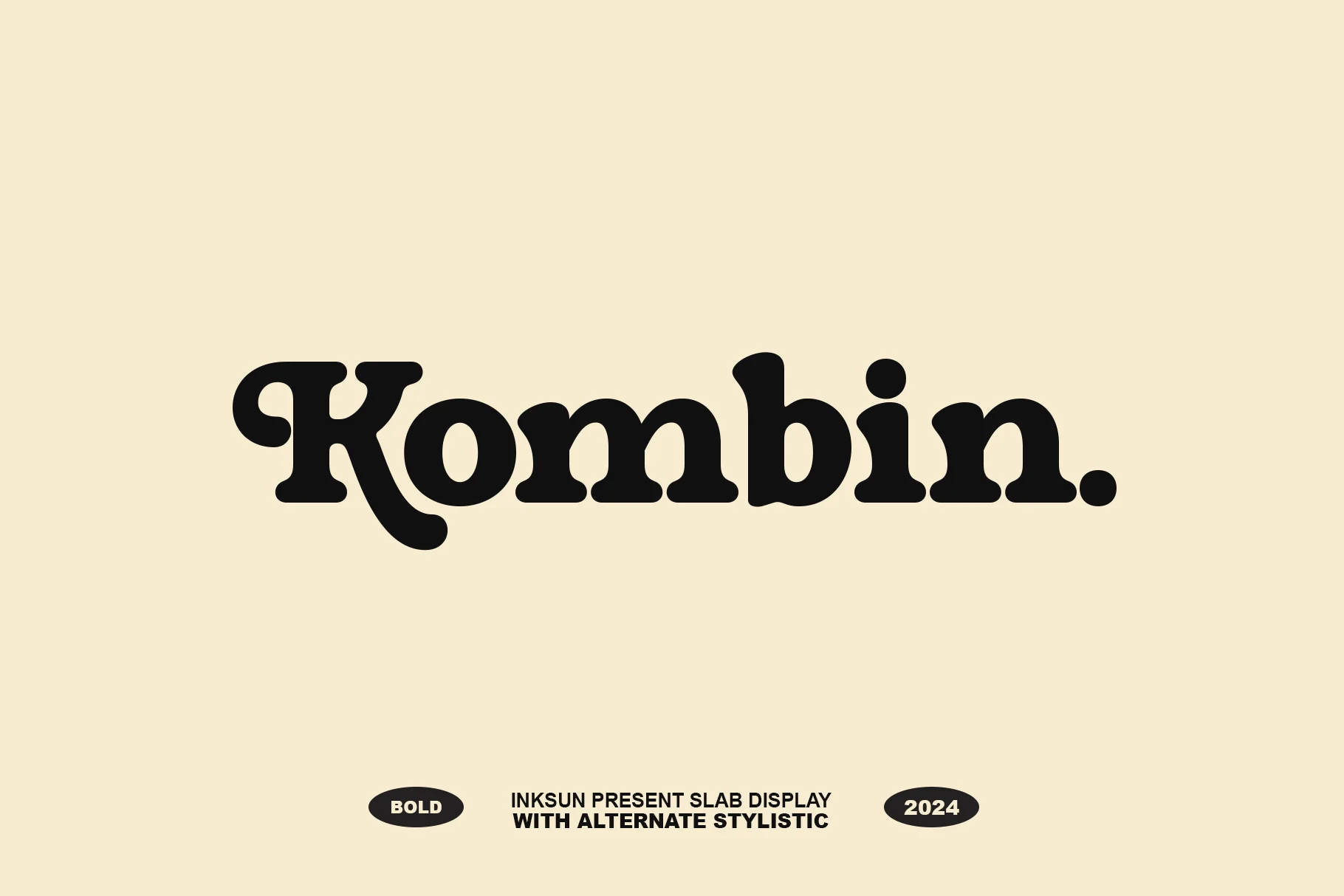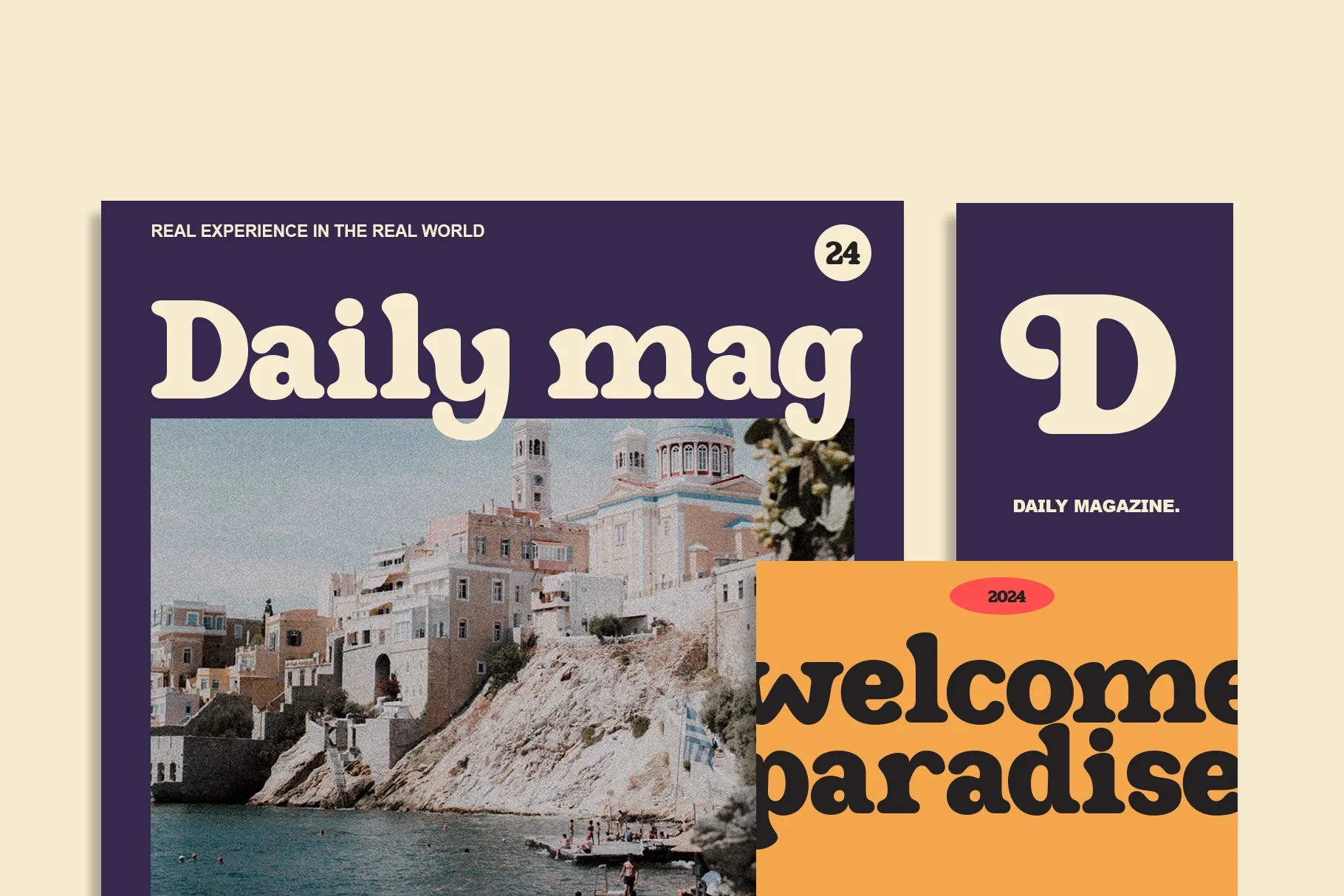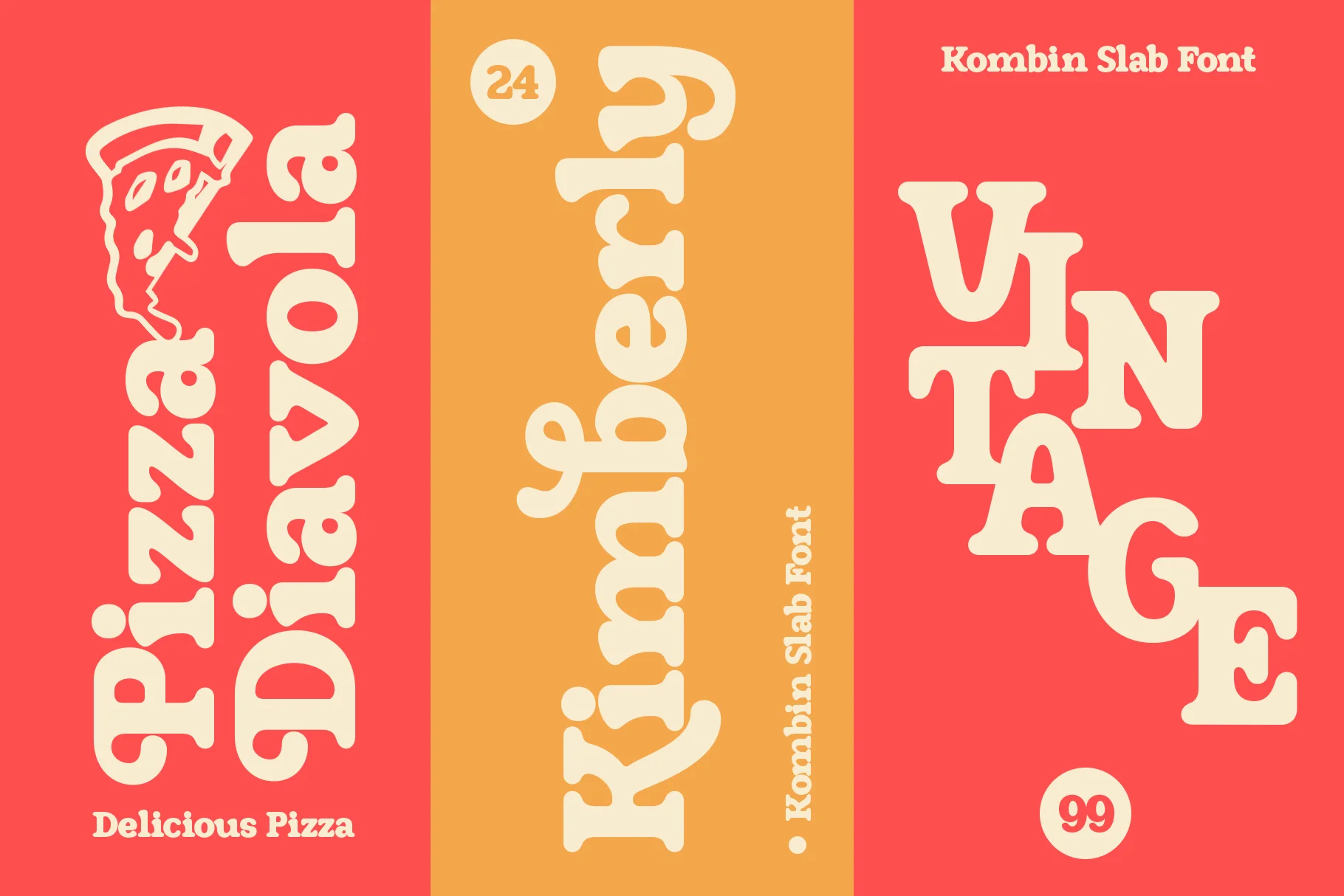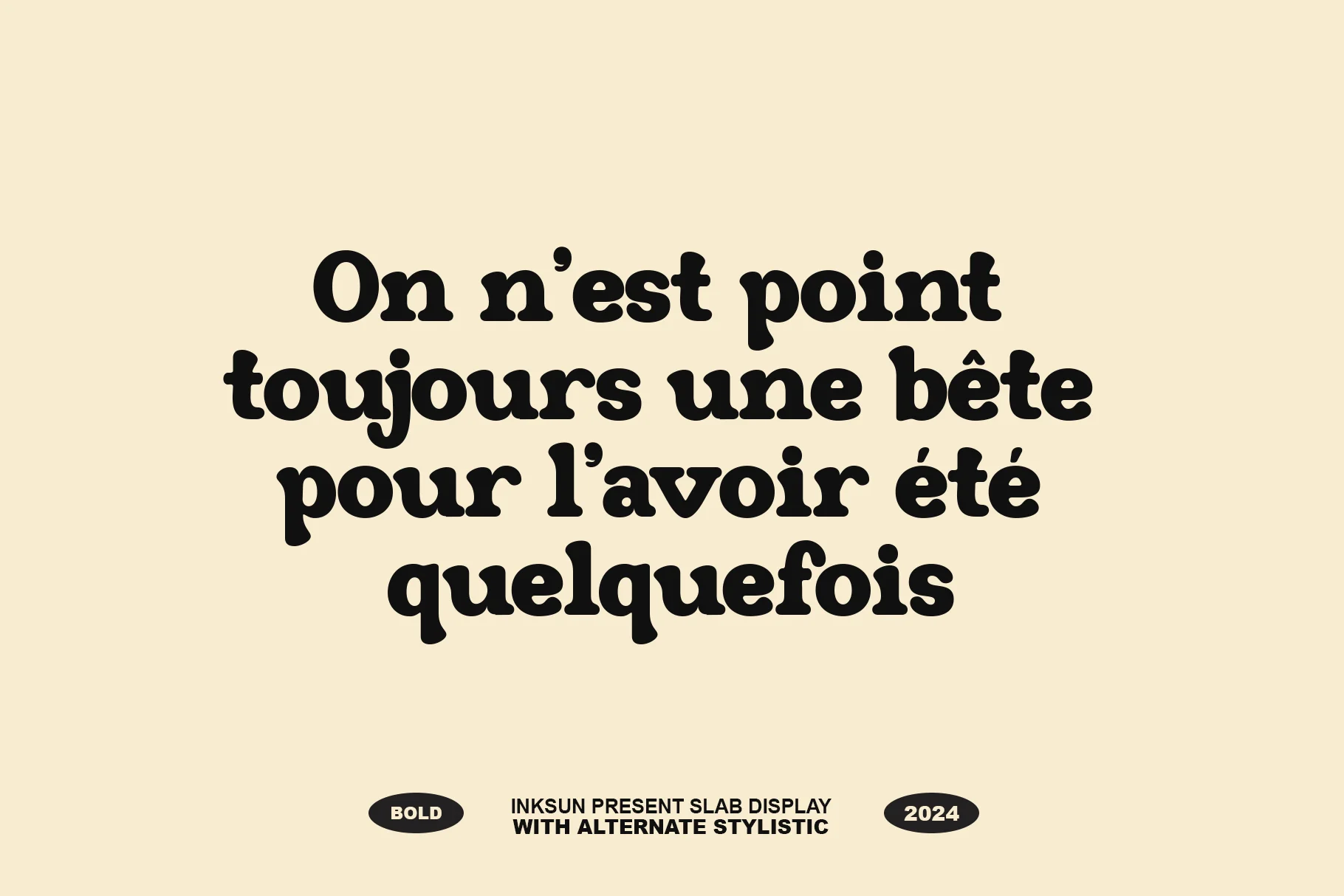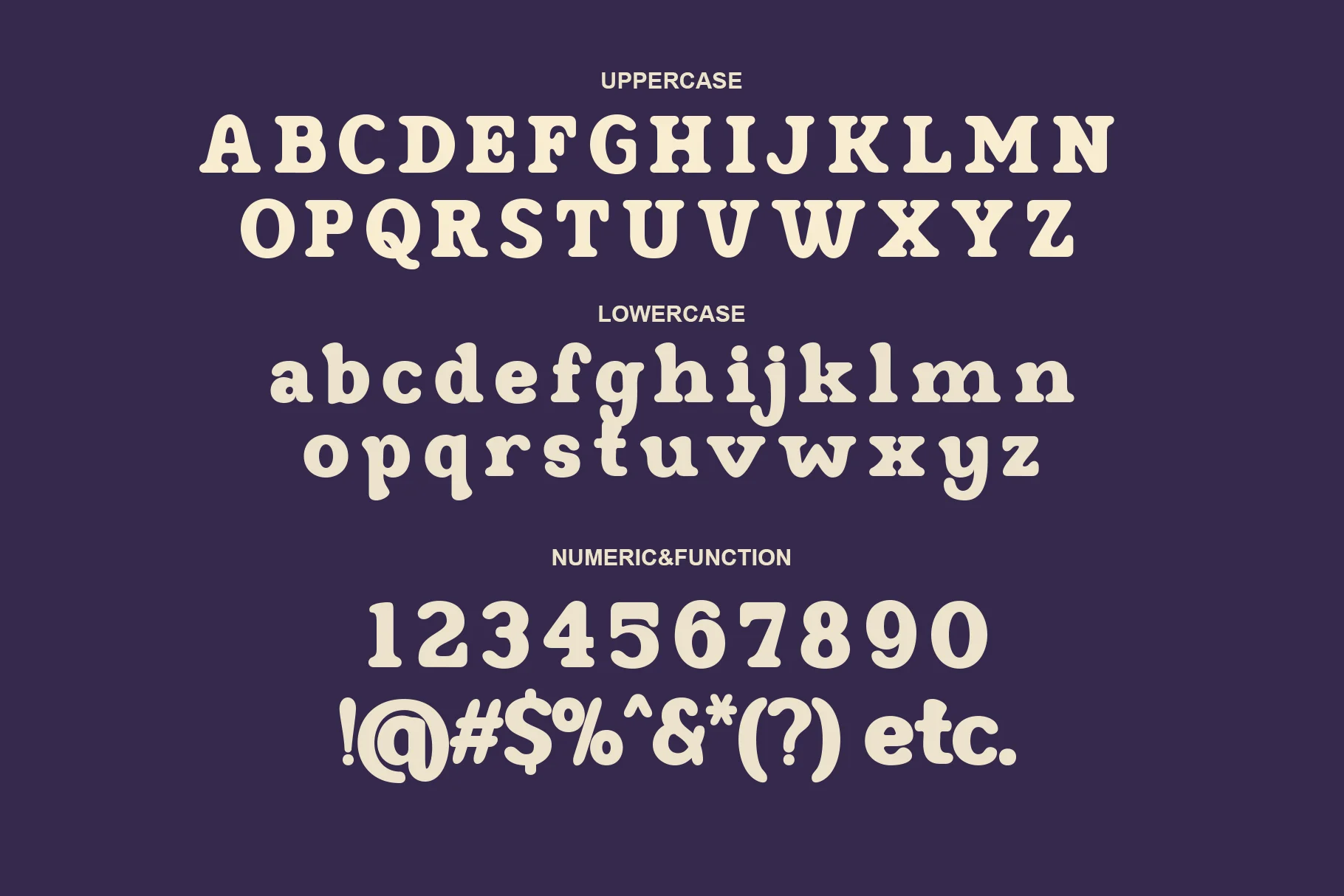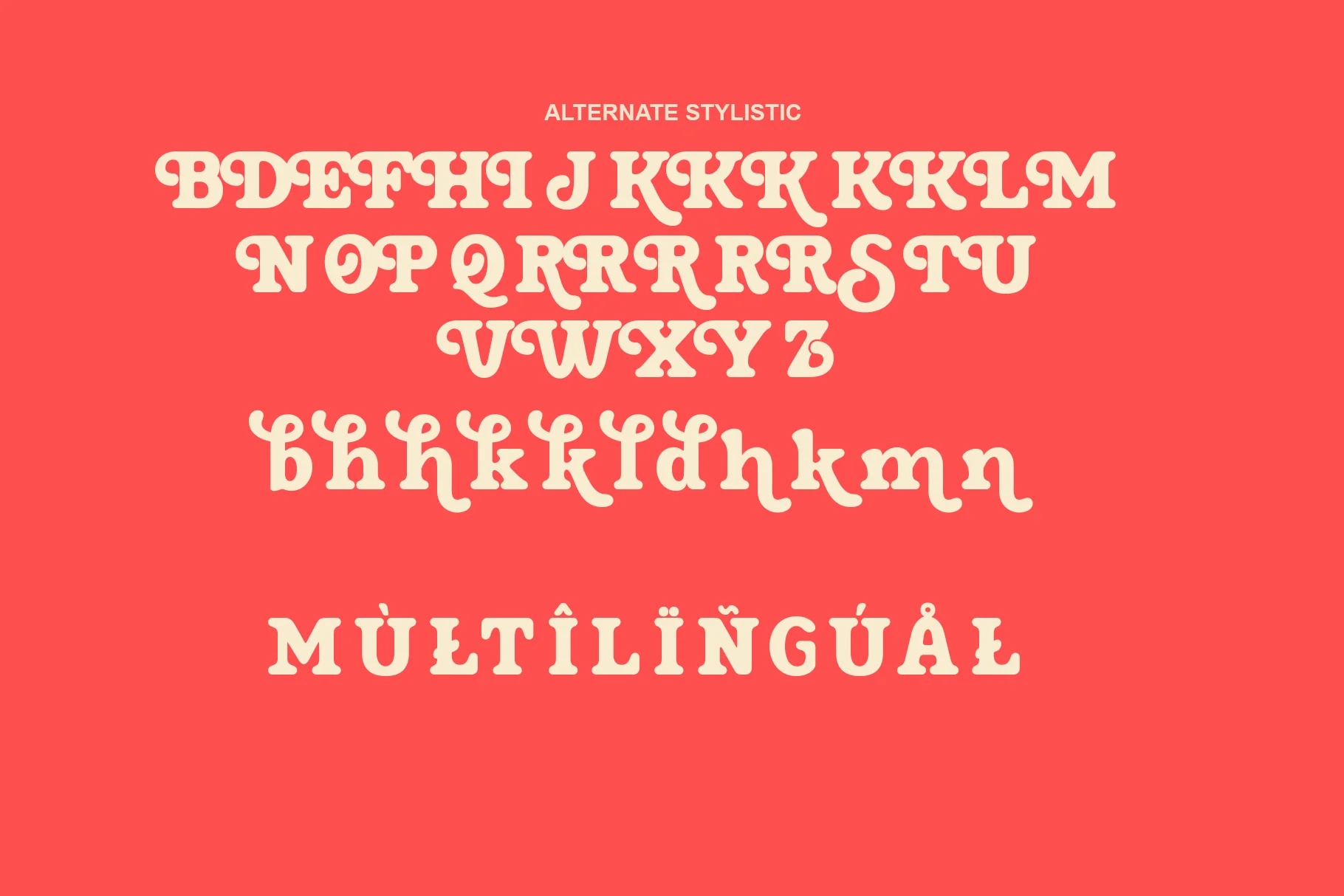
Kombin
This font combines the strength of a thick Slab Serif structure with a touch of very fluid and friendly curves, creating a retro look but still feels fresh for modern designs. It has a very thick weight (bold), giving a strong visual impact and stability to each word. The main advantage of this font lies in its Alternate Stylistic feature. Note the letter 'K' which has a dynamic decorative curve, giving it a unique character that sets it apart from other standard slab fonts. Although based on Slab Serif, this font has rounded corners (not sharp), creating a warm, friendly, and "soft" feel visually.